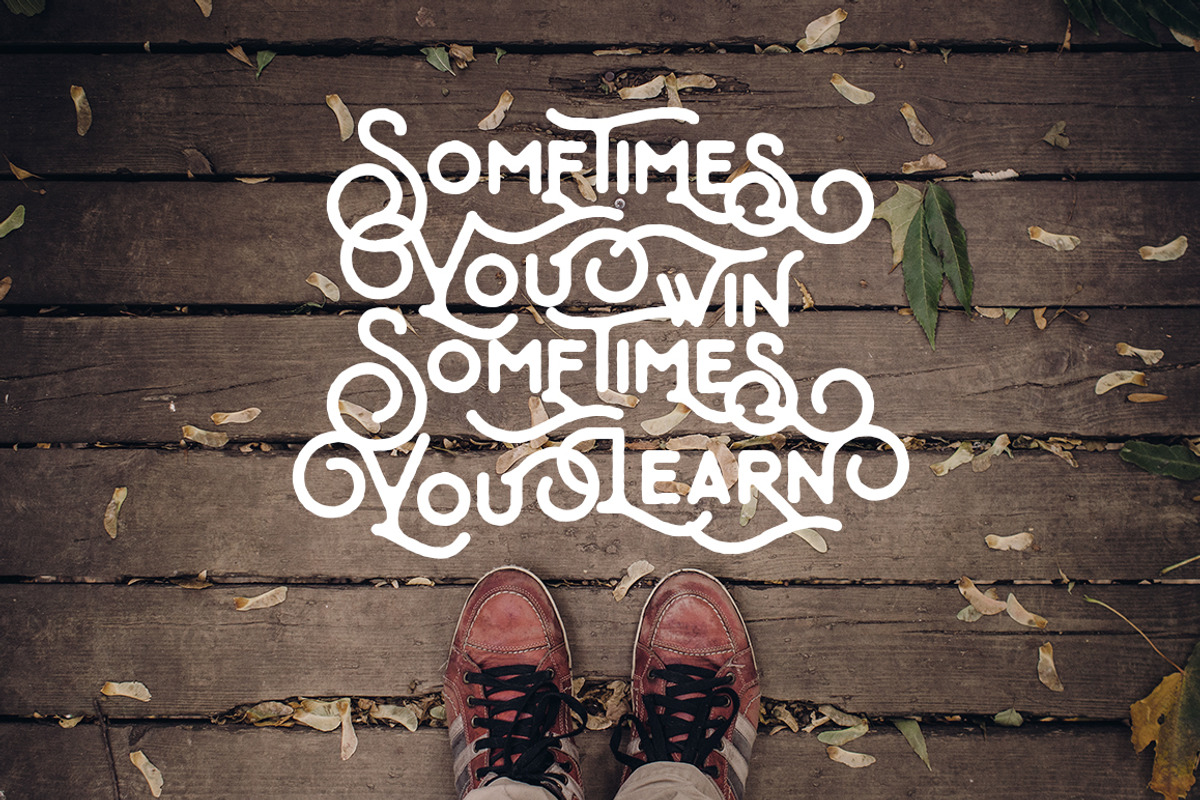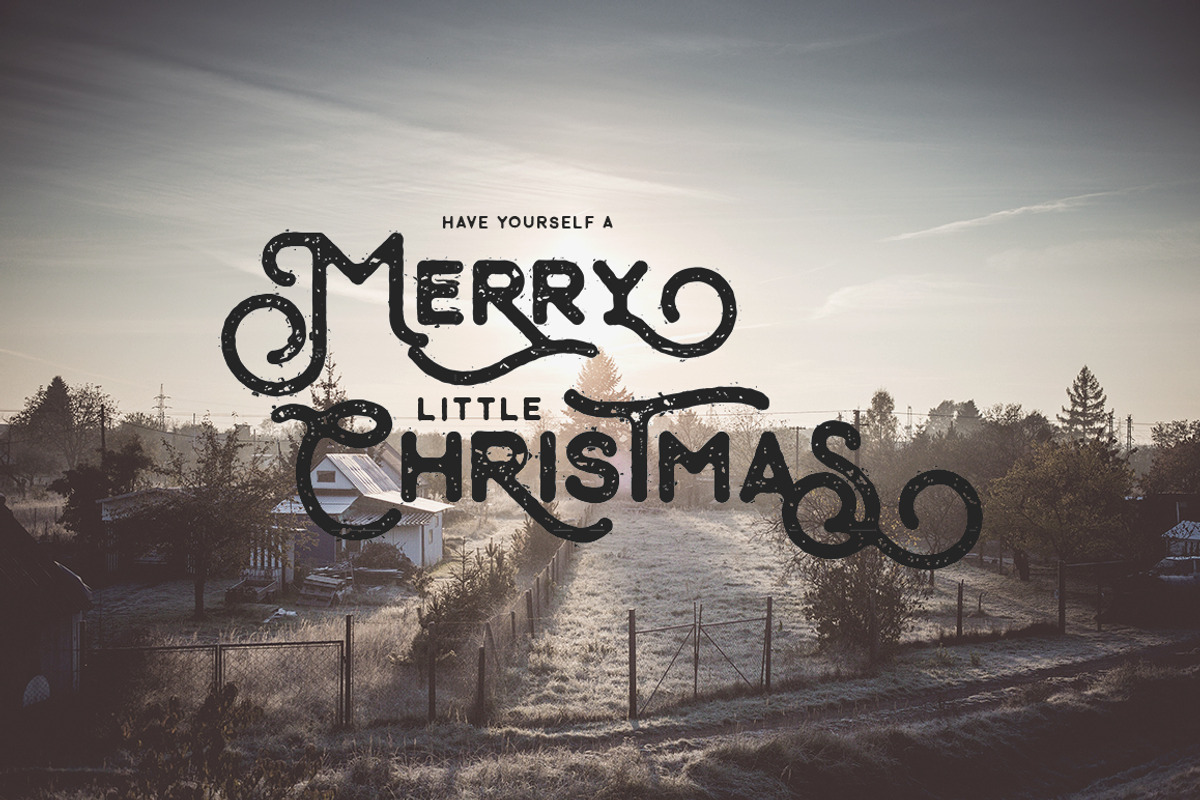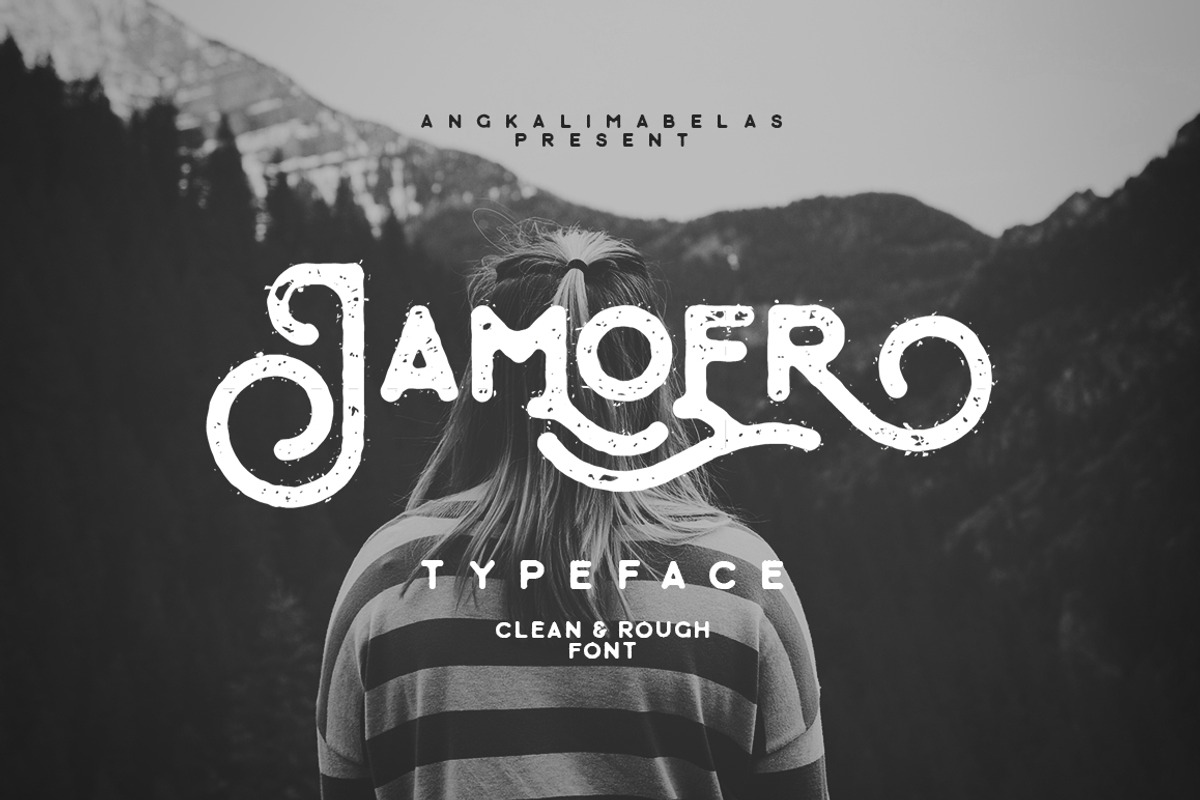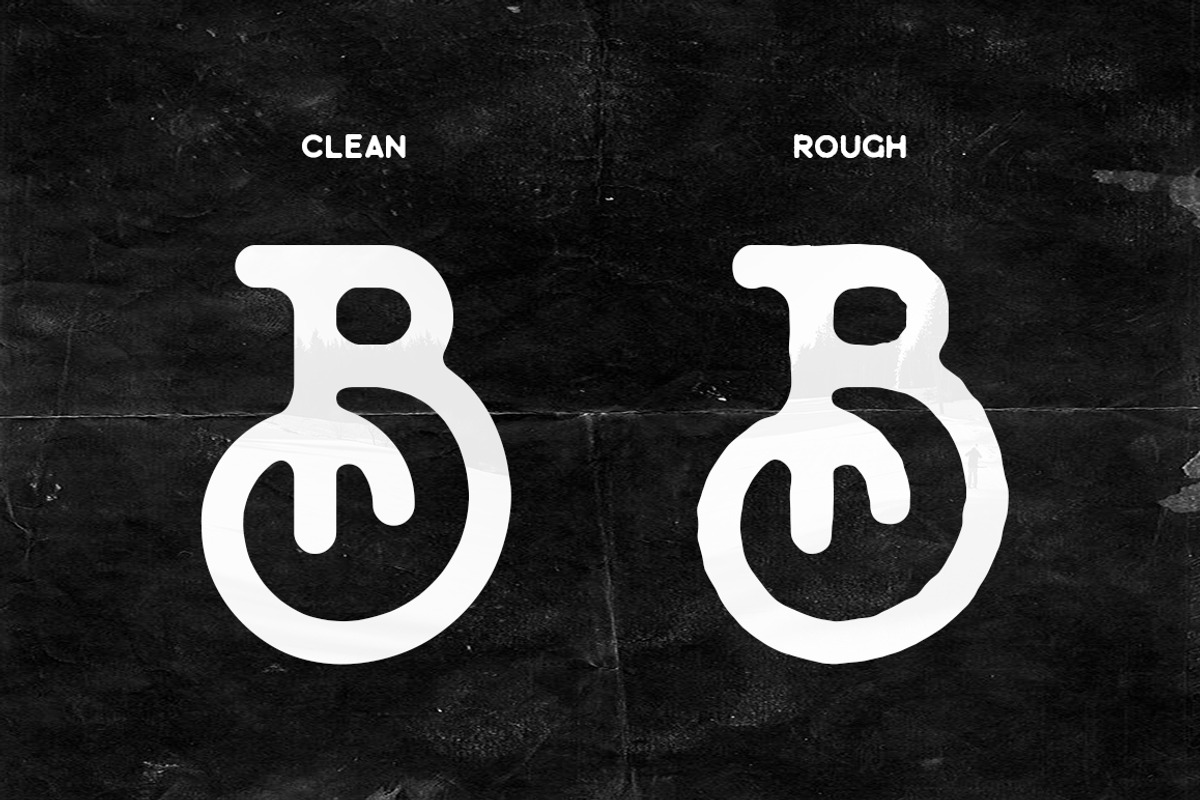
Jamoer Typeface
Jamoer Typeface is rounded font with vintage look styles. You can applied to logos, wedding invitation, display, clothing, quotes and many more.
Jamoer Features
- Clean & Rough font